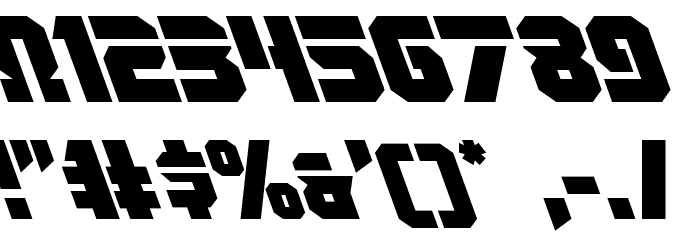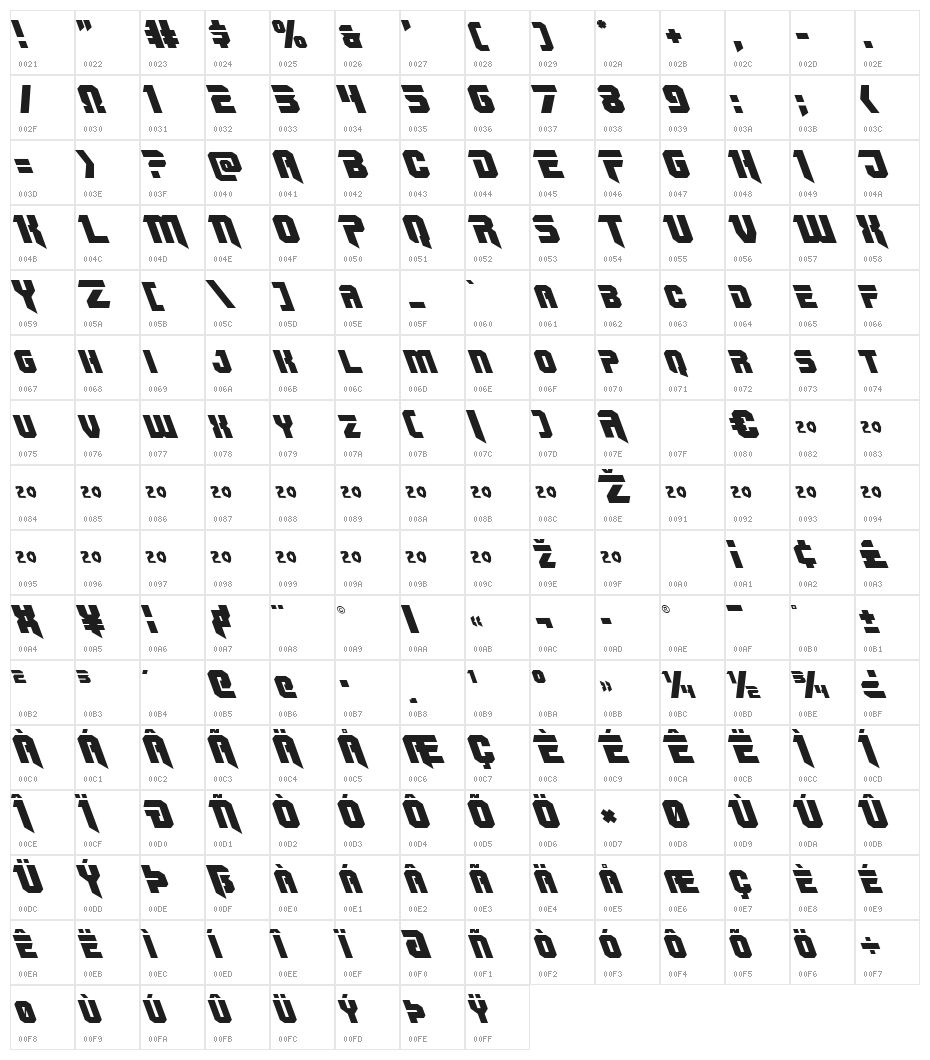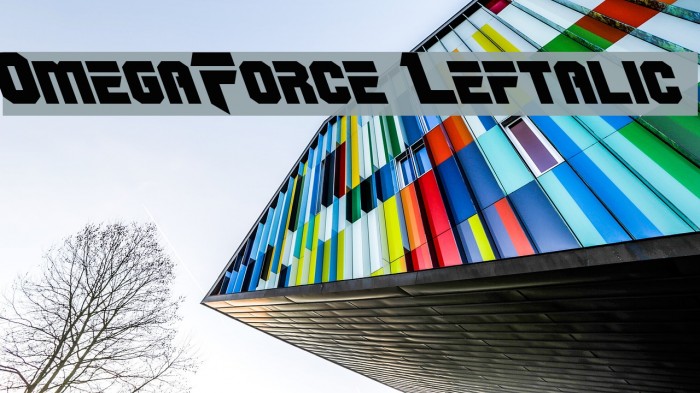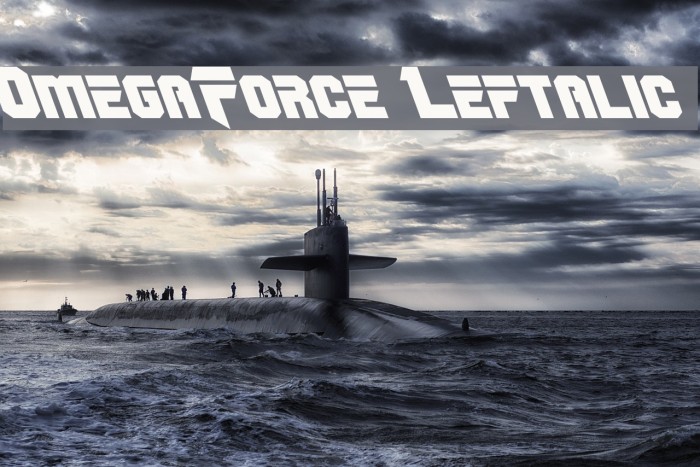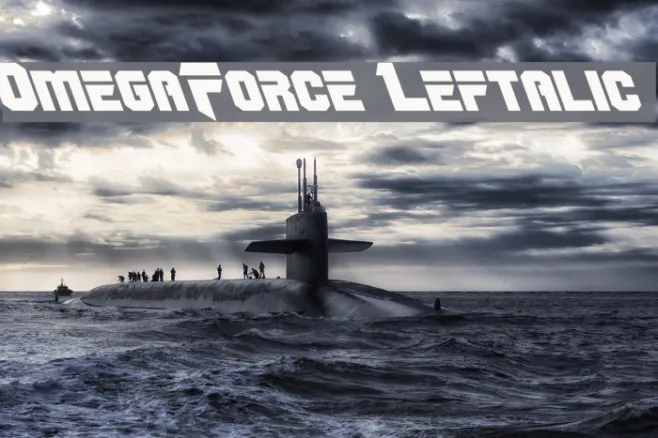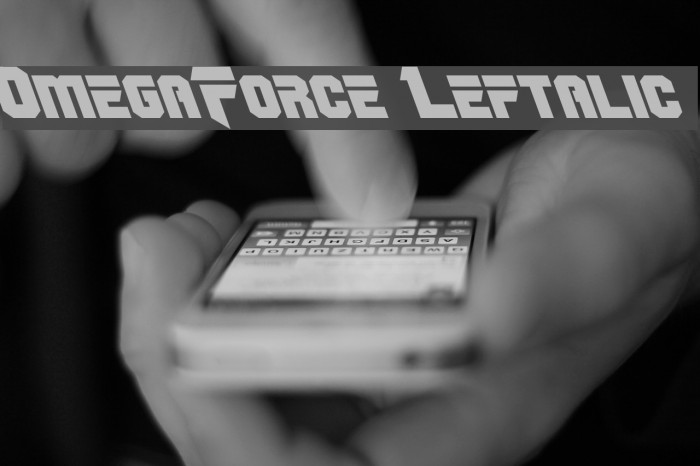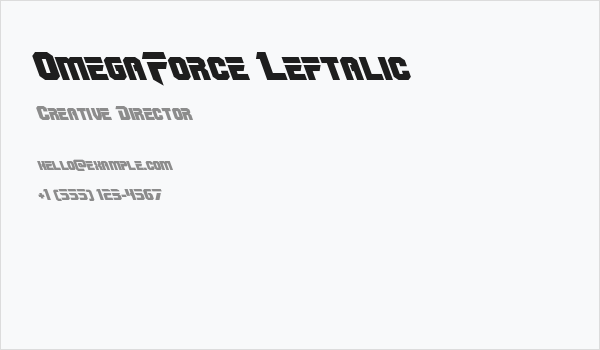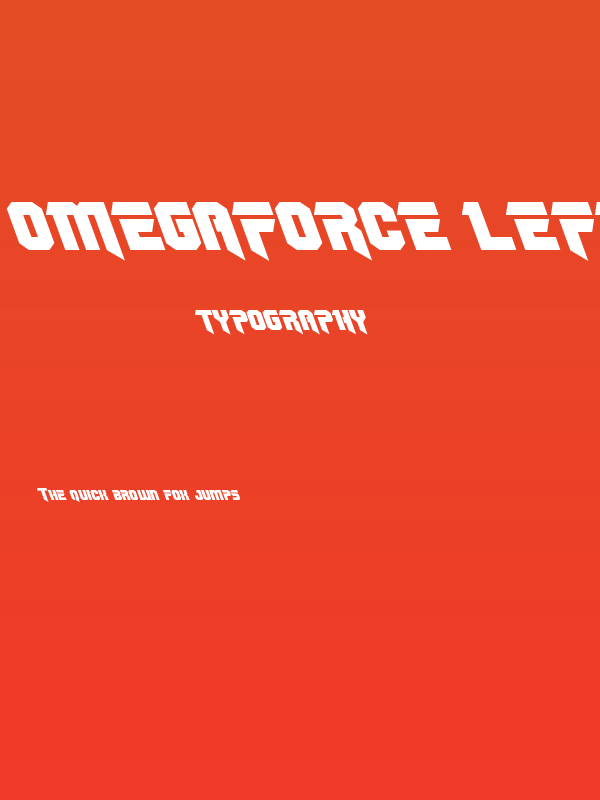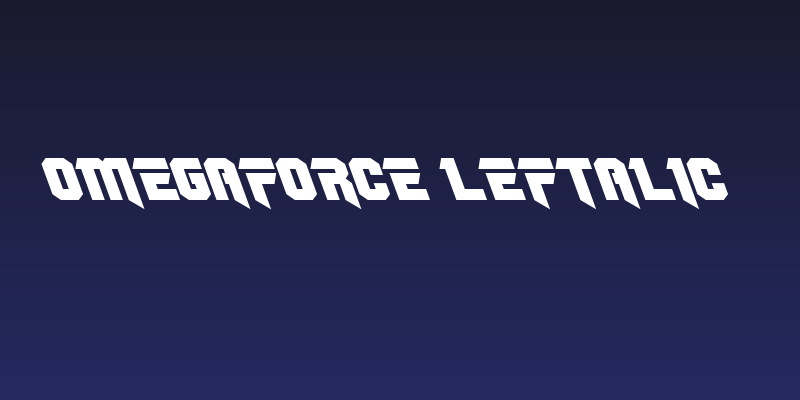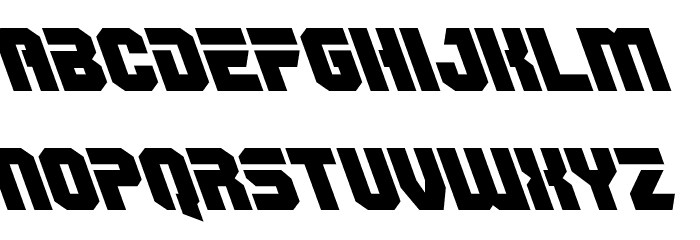
OmegaForce Leftalic Font
OmegaForce Leftalic Description
This font features a bold, angular design with a futuristic and dynamic appearance. The characters are sharply cut with a distinct slant, giving them a sense of motion and energy. The uppercase and lowercase letters maintain a consistent geometric style, while the numbers and special characters follow the same angular theme. The font's thick strokes and sharp edges make it highly legible and impactful, suitable for attention-grabbing designs.
| Proposed Projects | Ideal for sci-fi themed projects, video game titles, posters, and branding that requires a strong, modern look. |